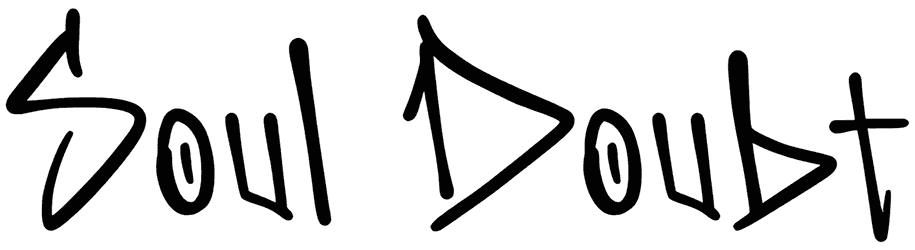
Soul Doubt Font
We want to introduce a graffiti font with the street art style to you. Soul Doubt is a hand lettering font that includes two versions, one simpler and the other with colors scattered around the letters. As an energetic urban font, Soul Doubt, with a sloppy line letterfor,m is an attractive choice for flyers, illustrations, covers, and many more creative designs.